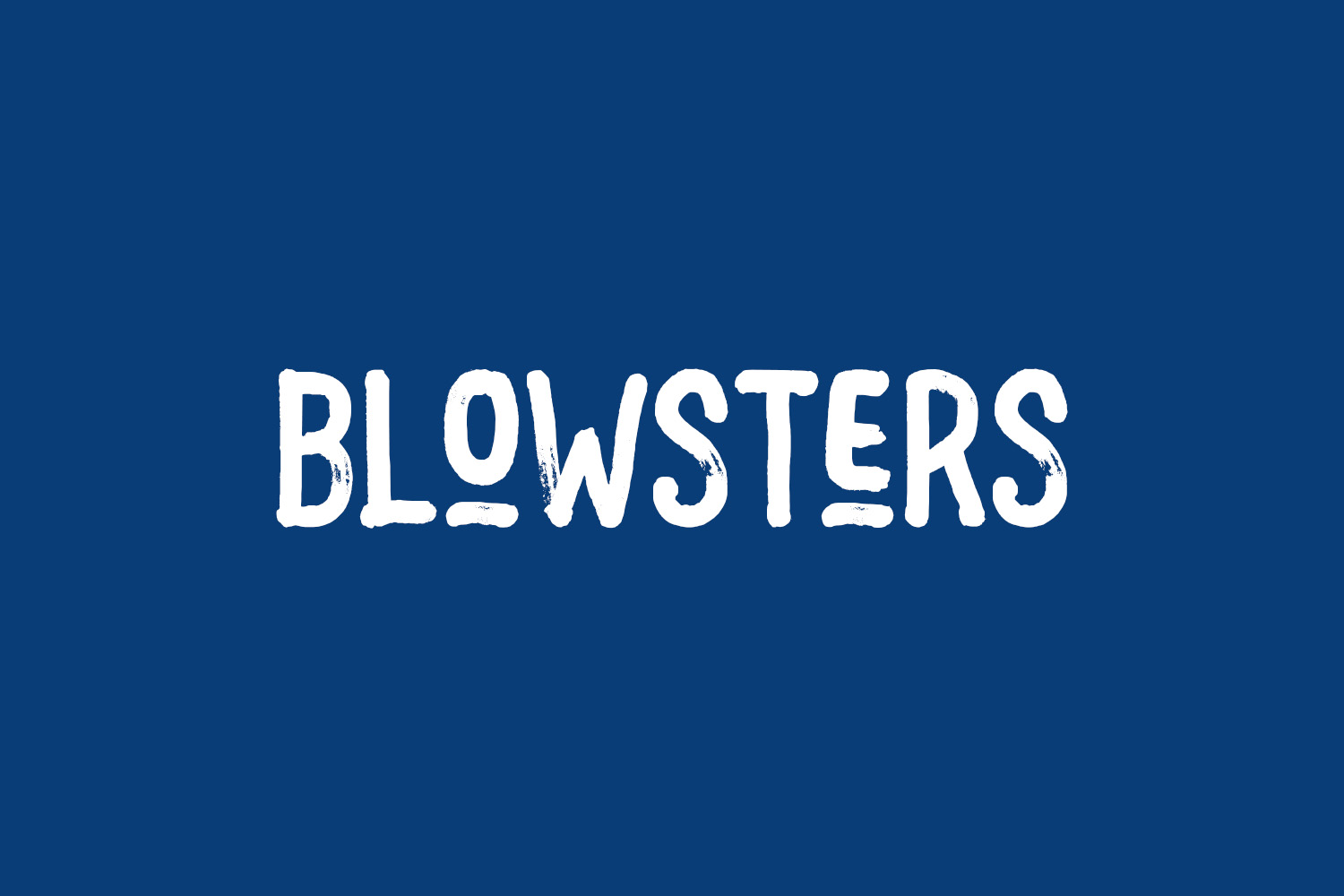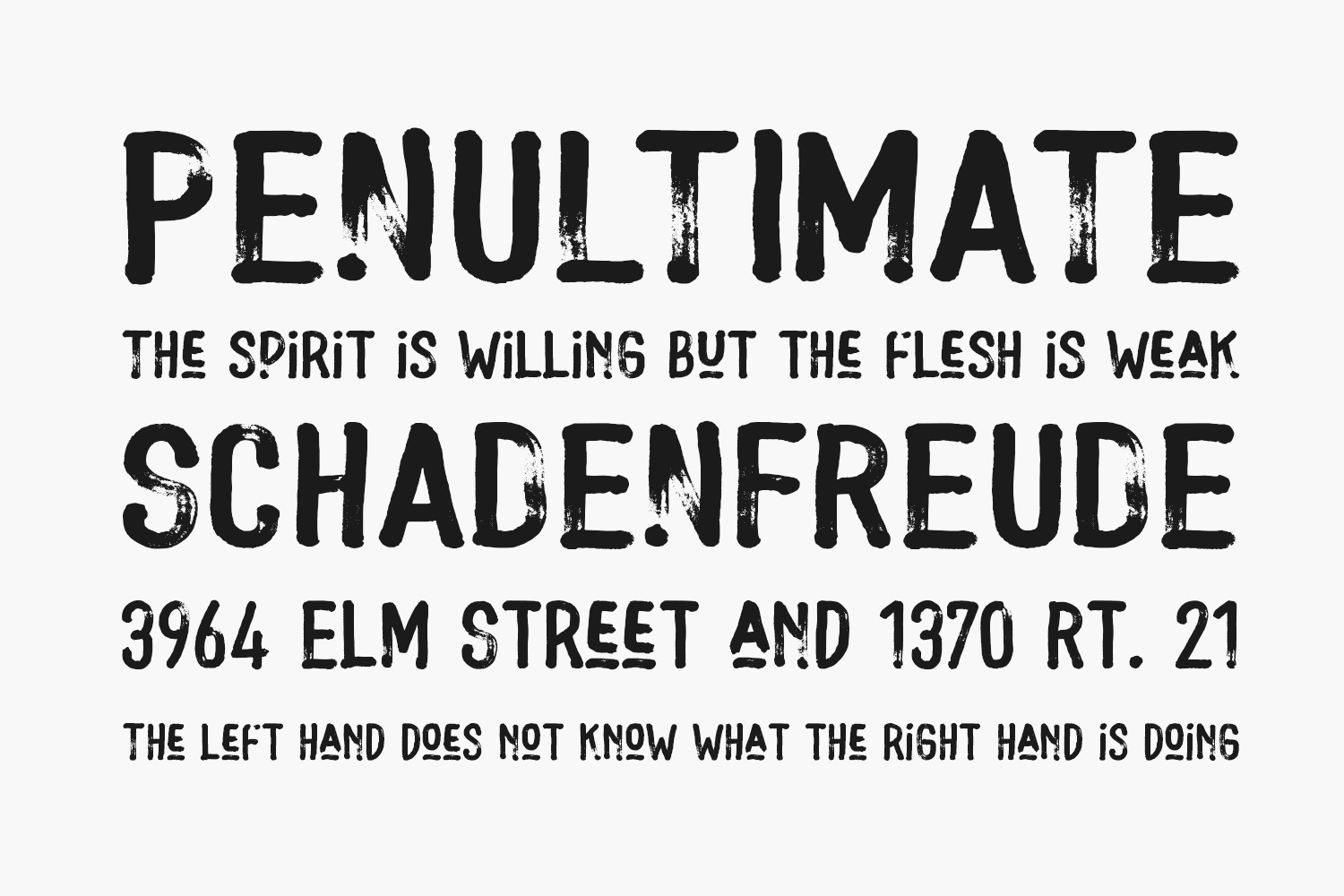
Make a bold statement with the Blowsters Free Font. It is a rugged, textured display font with thick and prominent lettering. This eye-catching font will impact any design project and leave a lasting impression on your audience. Whether you’re designing posters, headers, or branding materials, this font will bring a rough and edgy touch to your designs. Don’t be afraid to add this confident and striking font to your favorite creations, you’ll be amazed by the results.
Designed by Letterhend Studio